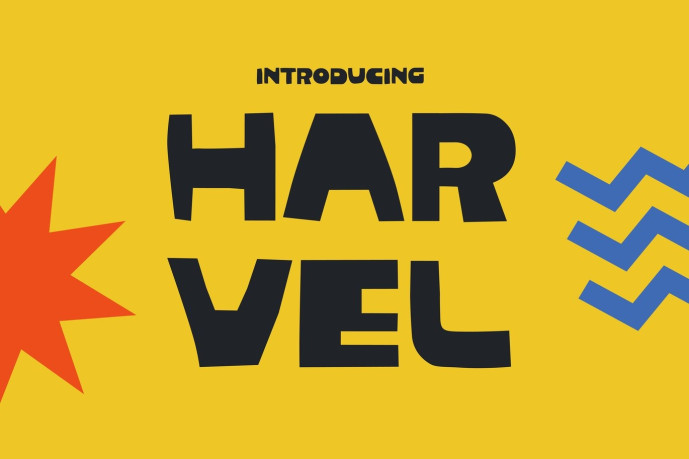
Harvel – Retro Font
Harvel is a playful retro display typeface designed for music festivals, youth-oriented branding, and energetic promotional campaigns. Featuring chunky geometric letterforms, rounded corners, low-contrast construction, and expressive proportions, it creates a lively visual rhythm that immediately captures attention.
Inspired by pop culture graphics, concert posters, street-inspired branding, and modern entertainment marketing, Harvel combines bold readability with a fun and approachable personality. Its oversized shapes and distinctive structure make every headline feel vibrant, memorable, and full of movement. Whether used for event posters, merchandise, social media campaigns, packaging, or creative branding projects, Harvel delivers strong visual impact with a cheerful contemporary attitude.
Harvel helps designers create visuals that feel energetic, engaging, and impossible to overlook. The bold geometric structure naturally stands out across digital and print environments, making it ideal for attention-grabbing headlines and promotional graphics.